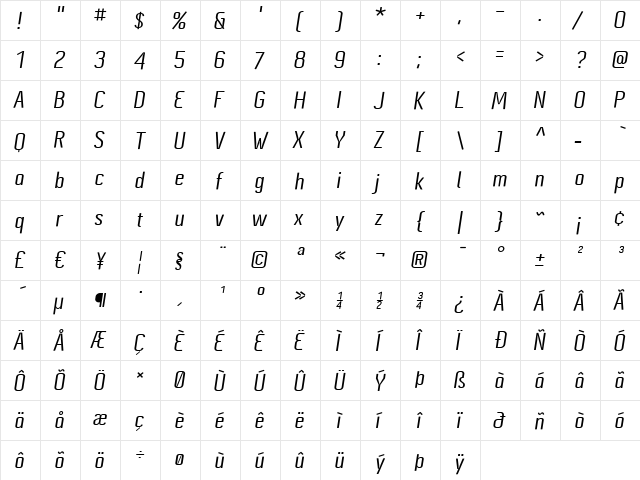
Cynapse Pro Bold Italic
| Foundry | Neil Summerour/Positype |
| Designer | Neil Summerour |
Design Context for Cynapse Pro Typeface
Cynapse Pro is a composed and adaptable typeface that performs quietly and consistently across a wide range of design contexts. Its italic angle brings a sense of urgency and motion to the letterforms. Its bold stroke weight gives it real presence on the page.
Pro Tip: Try Cynapse Pro for annotation and caption copy alongside an upright companion — the contrast in angle creates a dynamic but ordered typographic system.